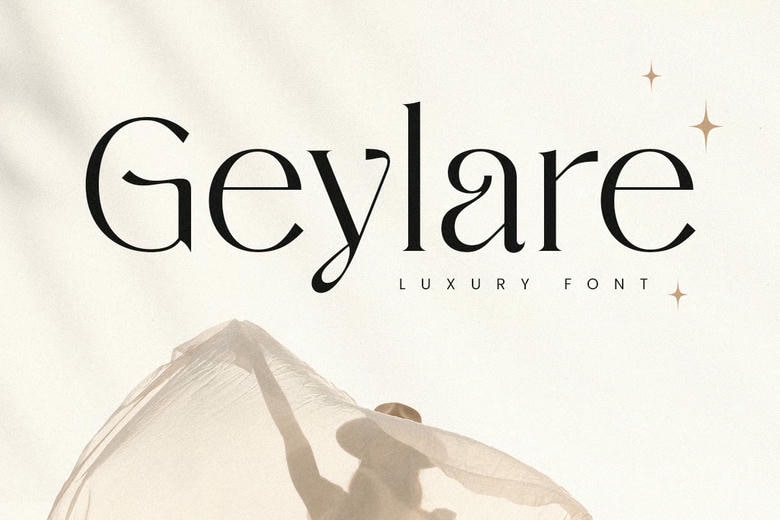
Geylare Font
Geylare Font is a high-end display typeface that is a blend of distinctive character and contemporary sophistication. Designed to add a sense of elegance to your designs, Geylare is ideal in branding, high-end packaging, and editorial work. Its unique style renders it a unique option among designers who want to produce works of visual beauty and memorability.
Geylare started with the dream of combining luxury and uniqueness in one typeface. All the characters are carefully designed to give any project a touch of uniqueness. This font is perfect when one wishes to make a statement, be it in logos, invitations, or online. The luxurious feel and the design elements that make Geylare unique make it a flexible option to different design requirements.